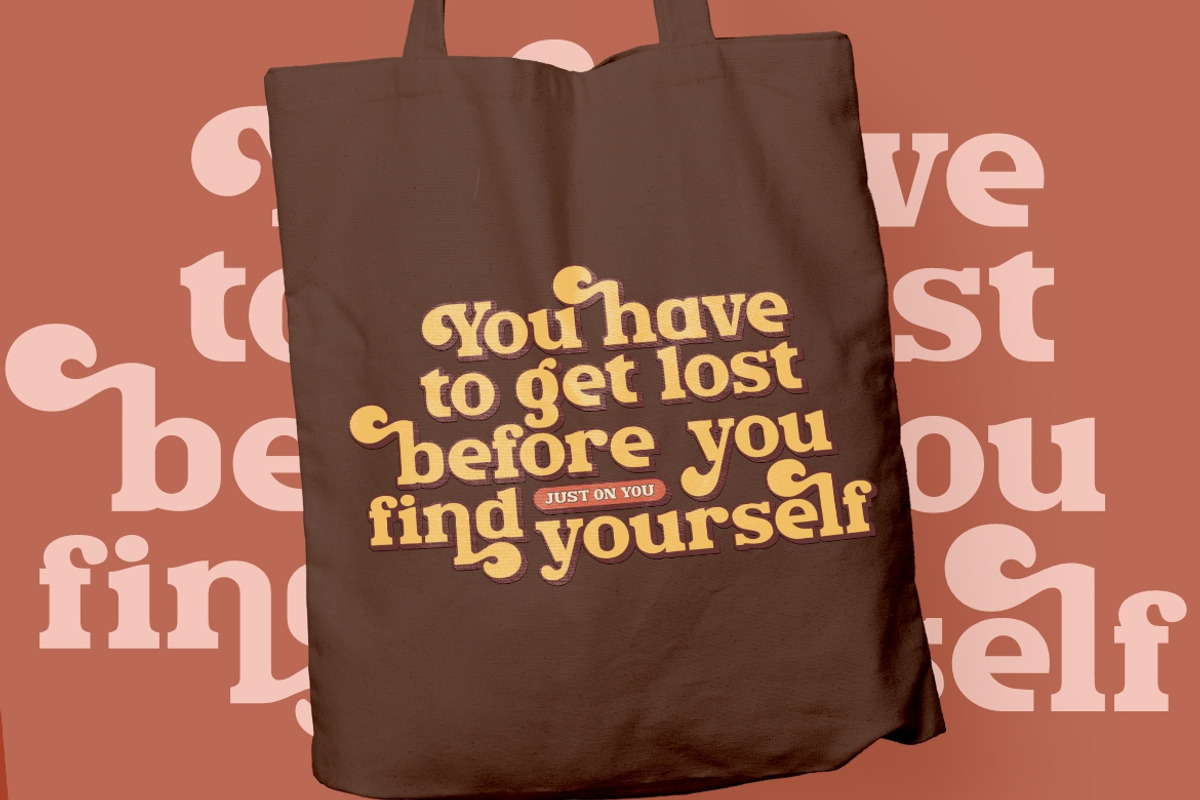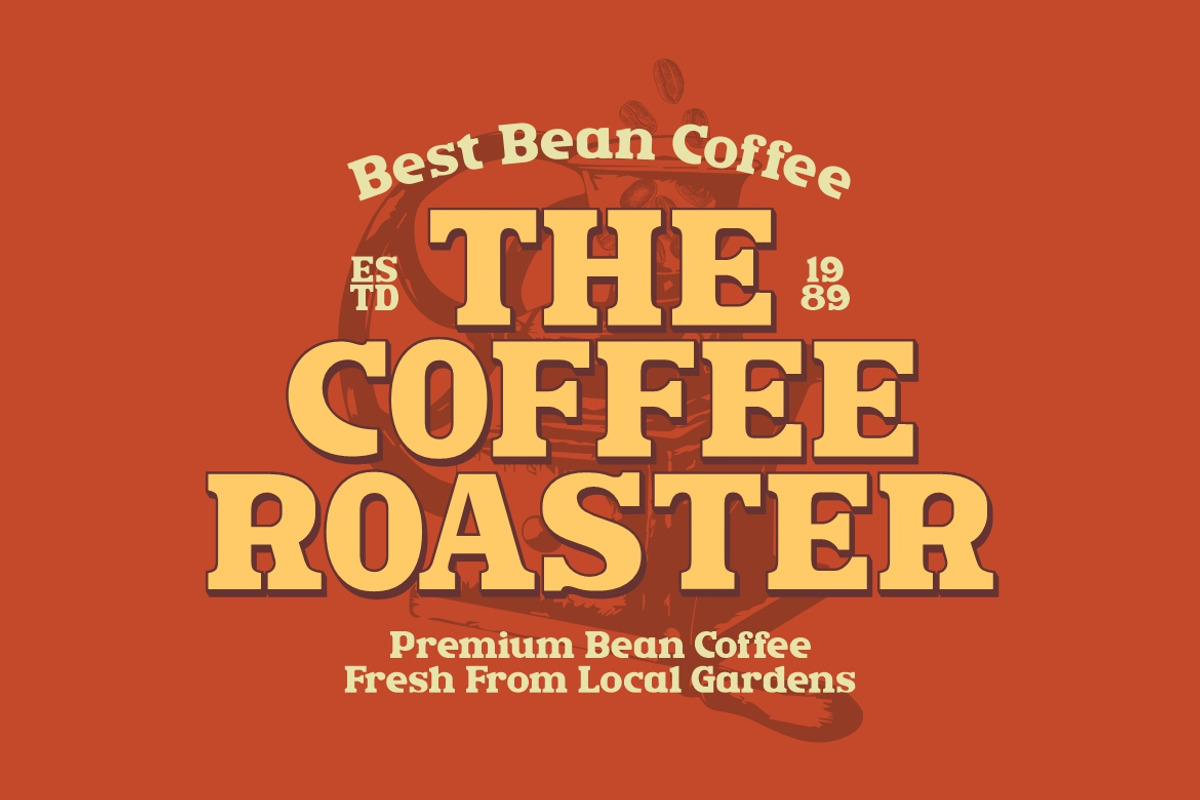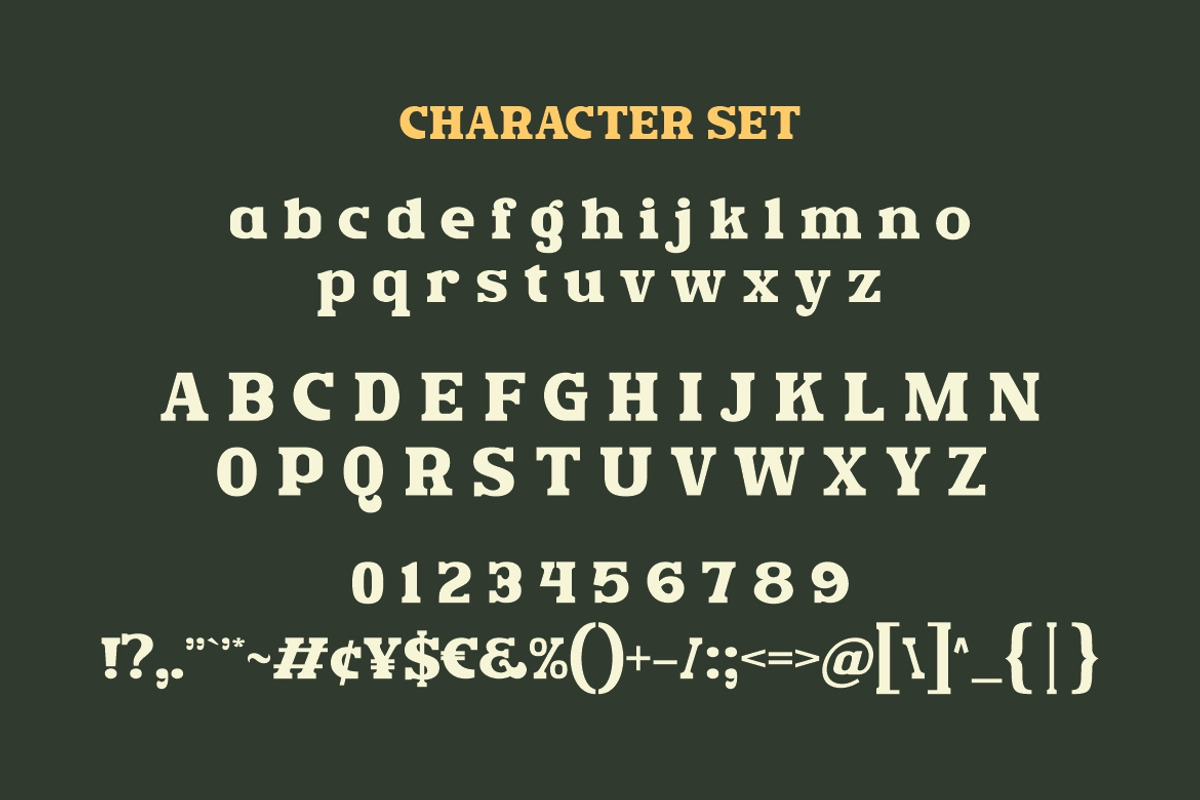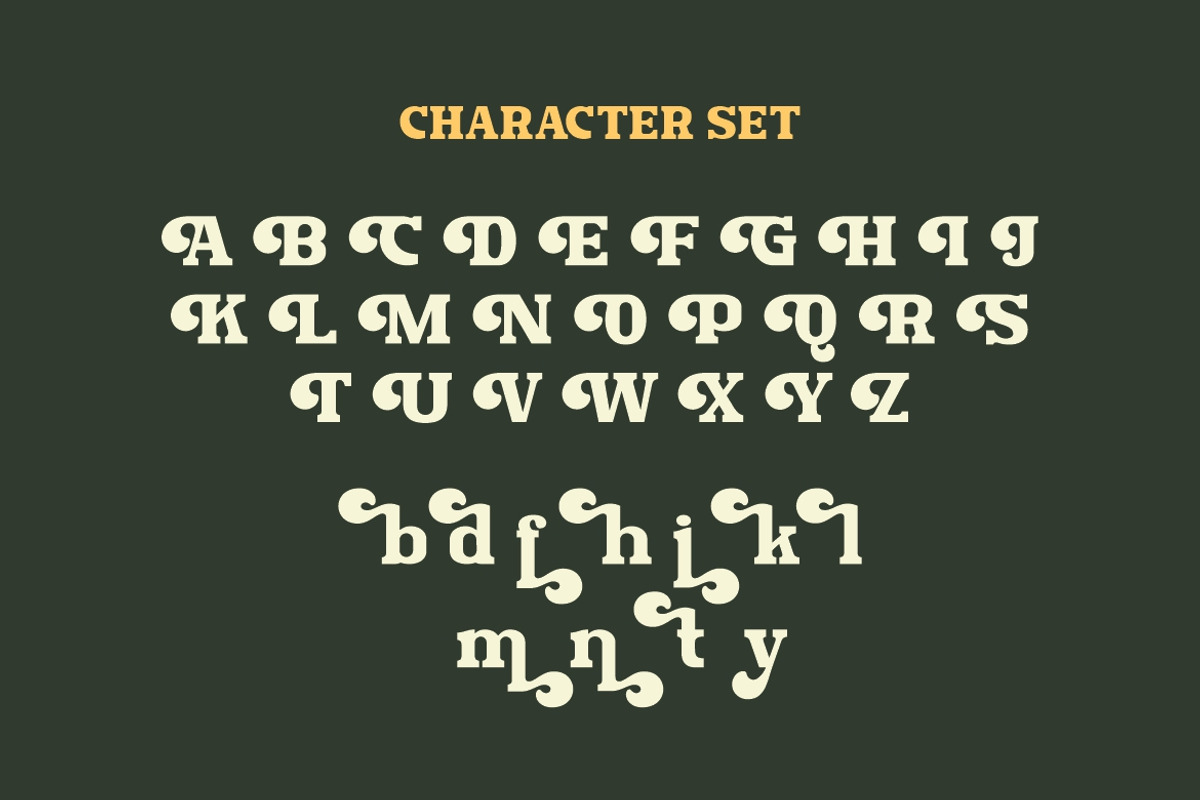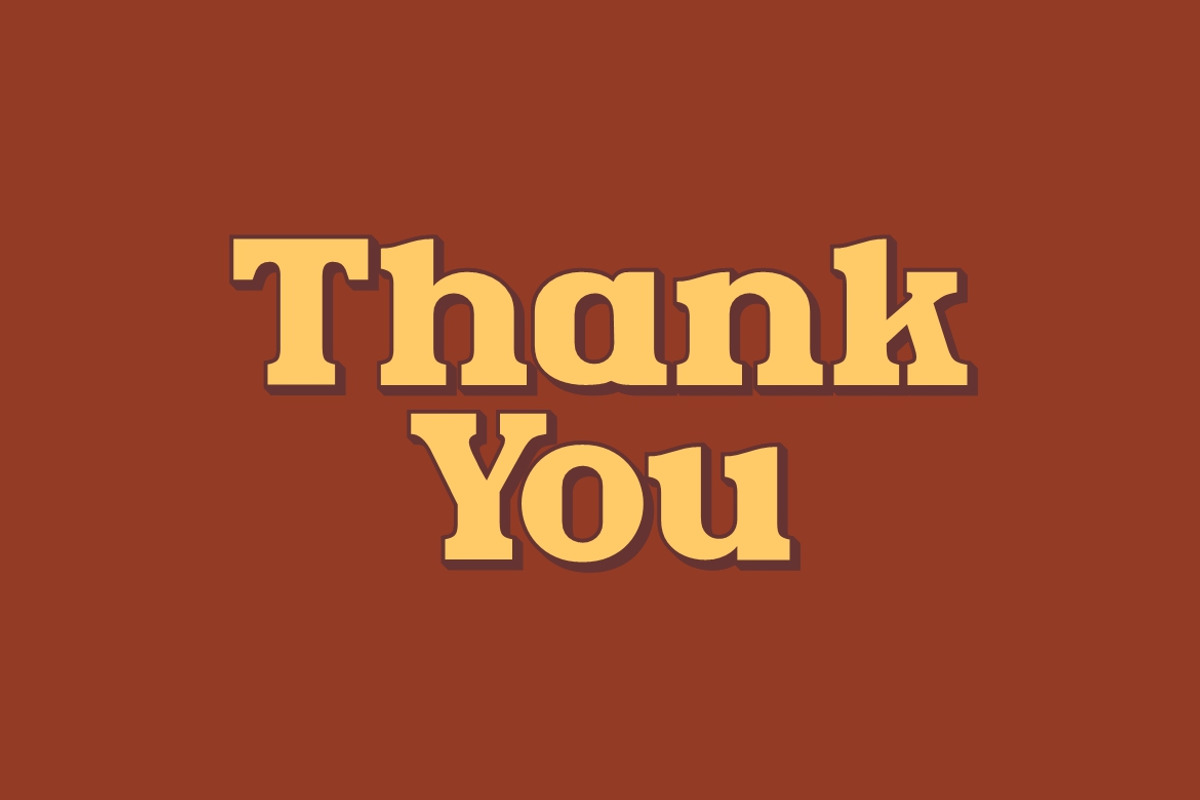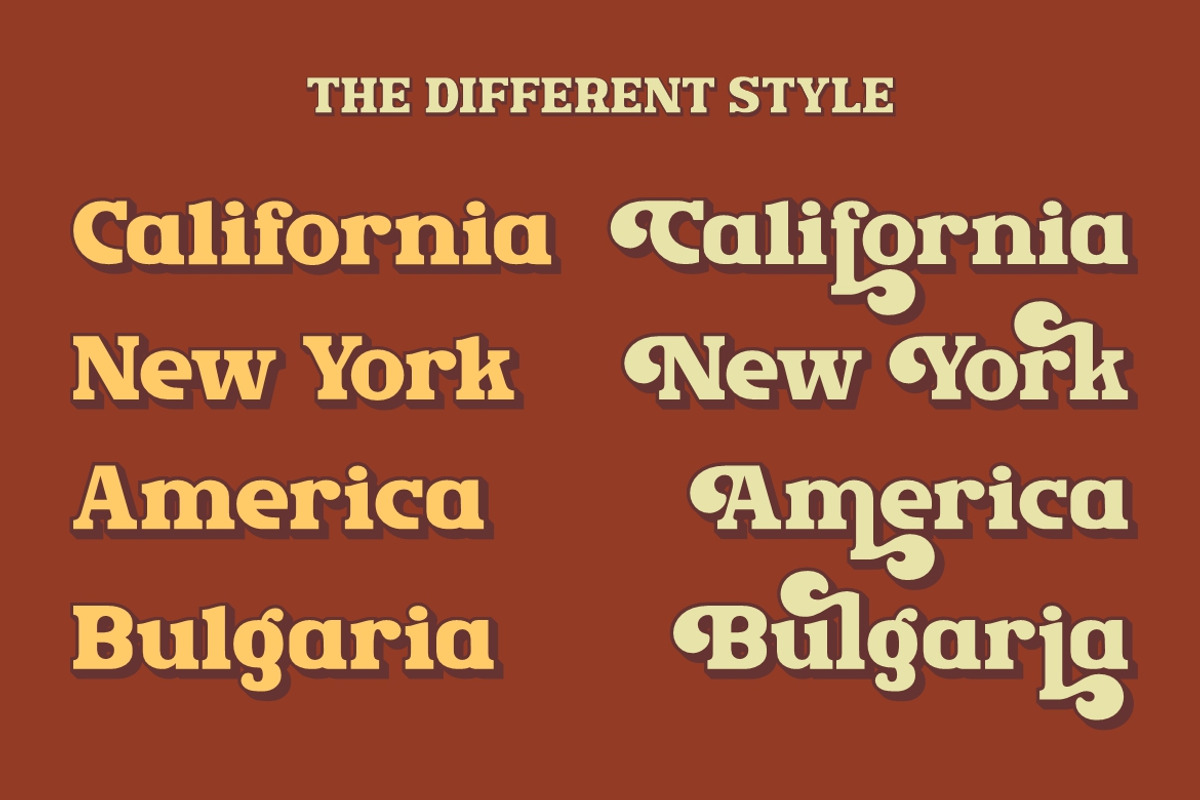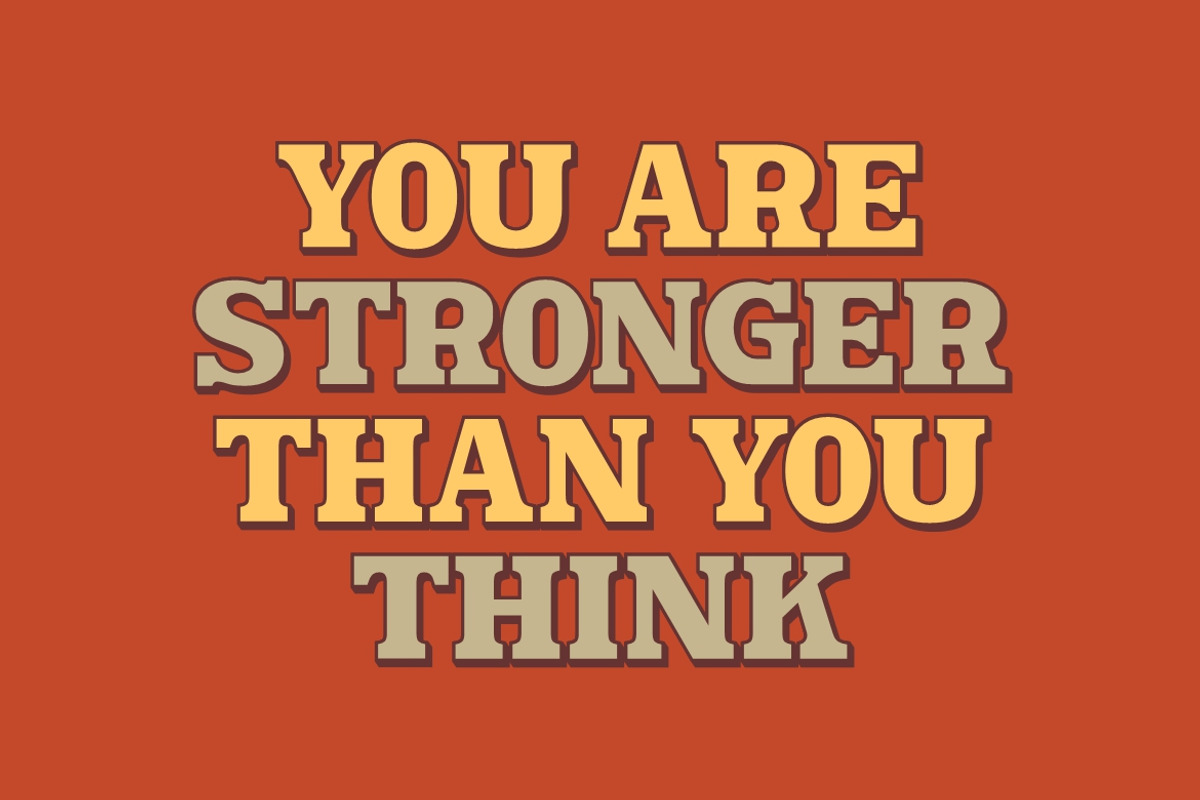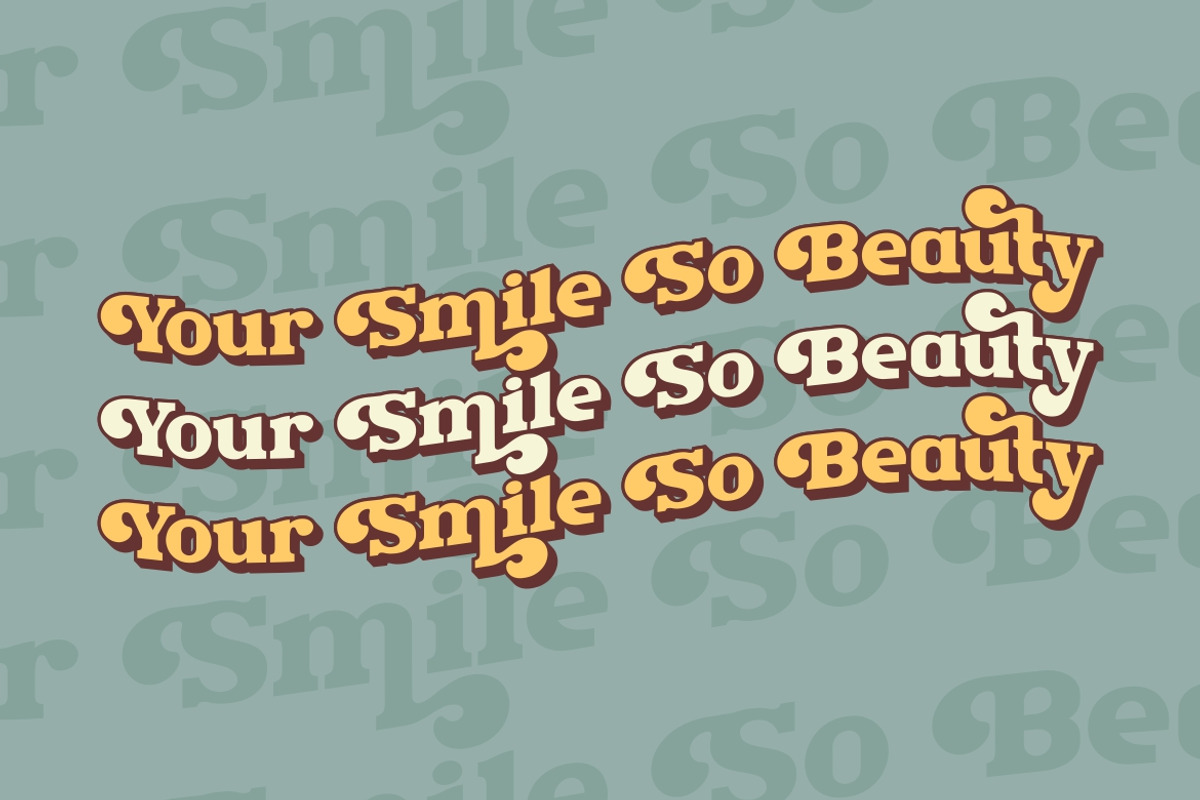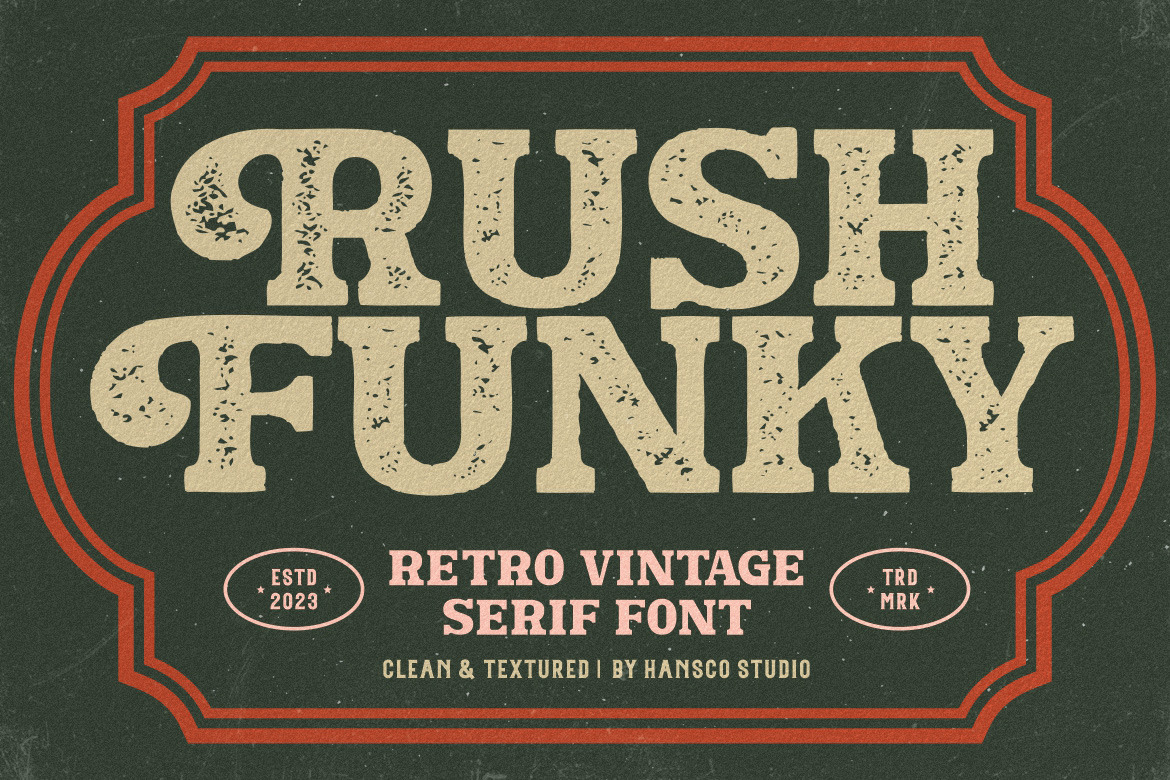
Rush Funky - Retro Serif Font
Rush Funky is a serif typeface with vintage and retro look!. Equipped with all complete characters ranging from uppercase letters, lowercase letters, numbers, punctuation marks and multi-lingual support, this font is ready to be used in any project. Very suitable for Logotype, Stickers, Packaging design, Cricut Project, Headlines, Brand identity, T shirt or Apparel industry, Posters, Magazines, Books, YouTube, Instagram, Websites, Canva, Corjl or any of your creative design projects. Use this Rush Funky font to add that special modern retro serif touch to any design idea you can think of!
- Alternate Character